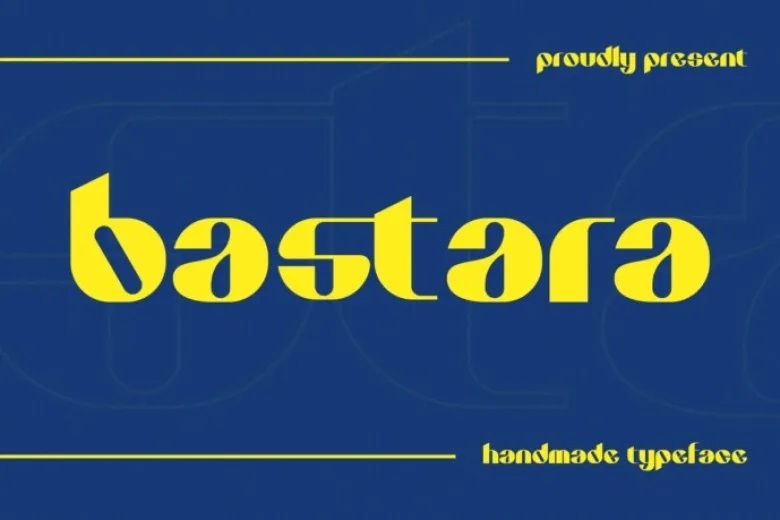
Bastara Font
Bastara is a Sans Serif Hand-Made Font. It is ideal for posters, social networks, branding, personal works and anything you can think of. The free version of this app has a upper case and a lower case each of the alphabet and only a limited number of special characters as well.
Bastara Sans Serif Font